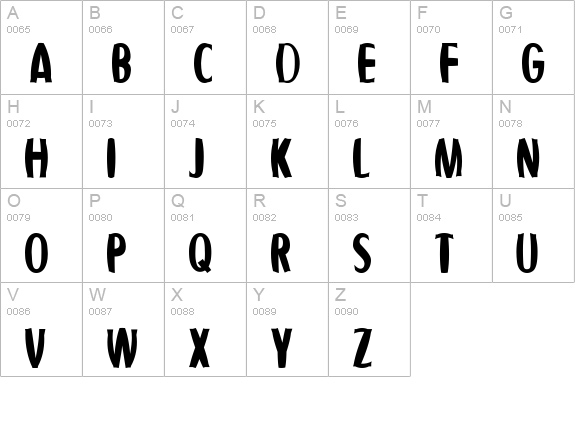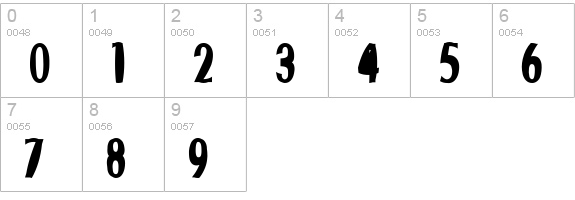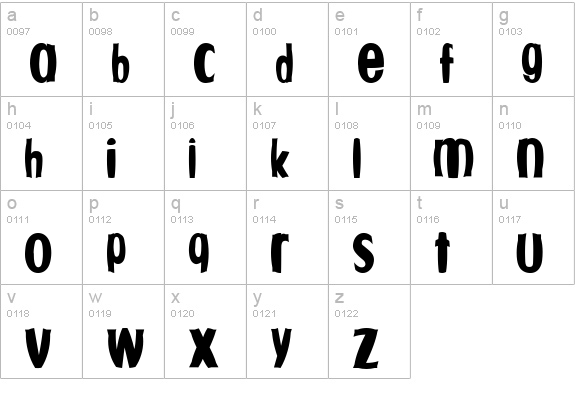
Fishbowl Font Details
Fishbowl font is a playful and unique typeface that will add a fun touch to your designs. With its rounded, bubbly shapes and whimsical appearance, Fishbowl font is perfect for projects that require a lighthearted and friendly feel. This font is freely available to download at FontsMarket.com, making it accessible to all designers looking to add a touch of charm to their work. Whether you're creating invitations, posters, or branding materials, Fishbowl font is sure to make a splash and bring a smile to your audience's faces. Let your creativity swim freely with Fishbowl font!